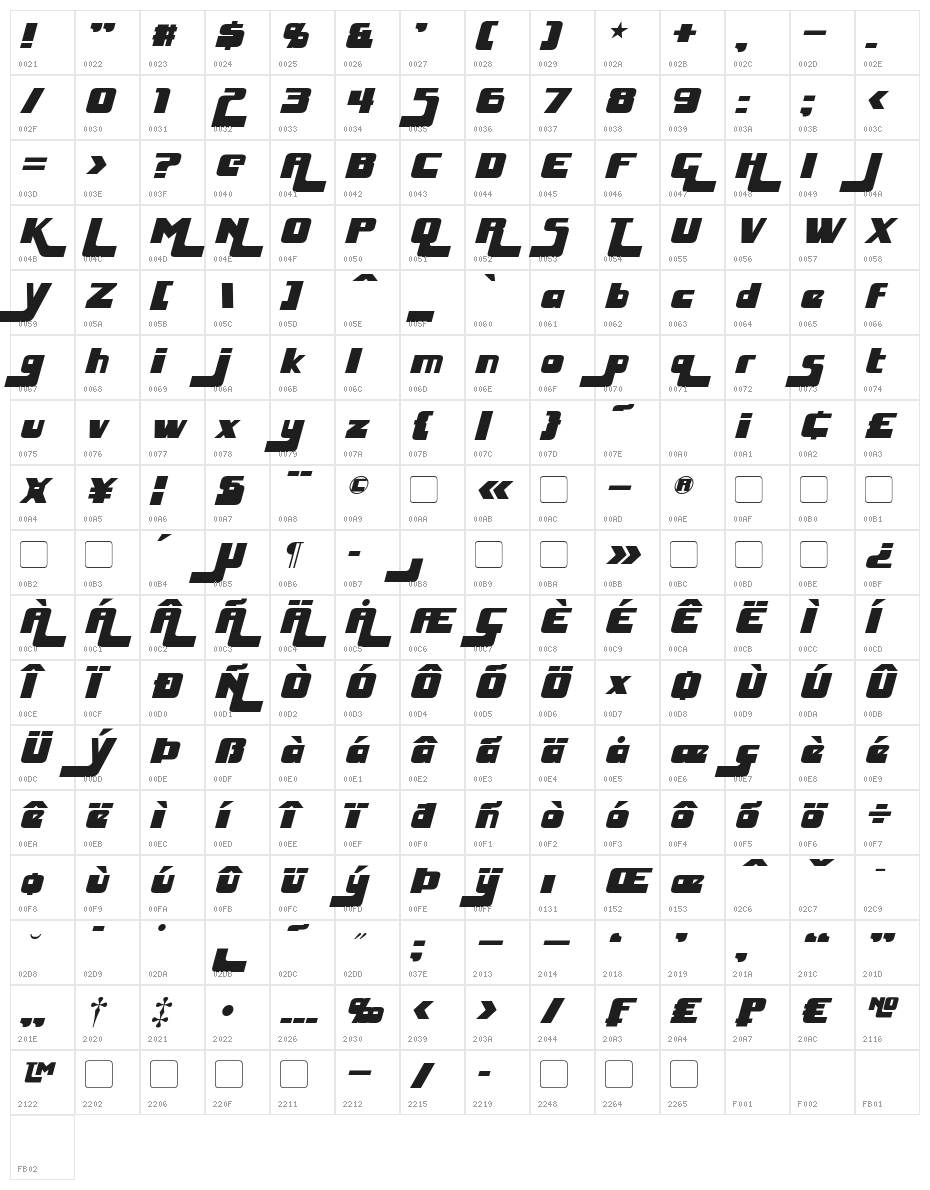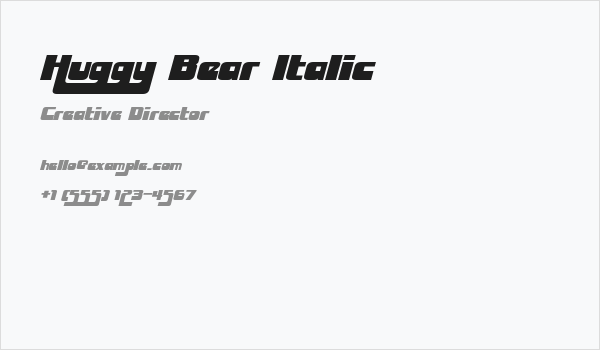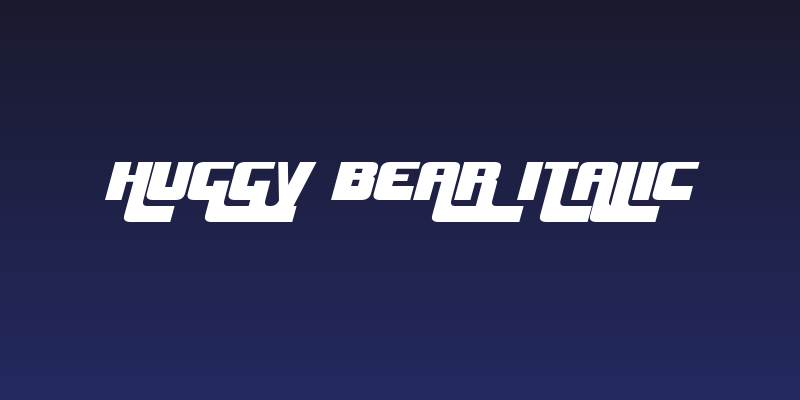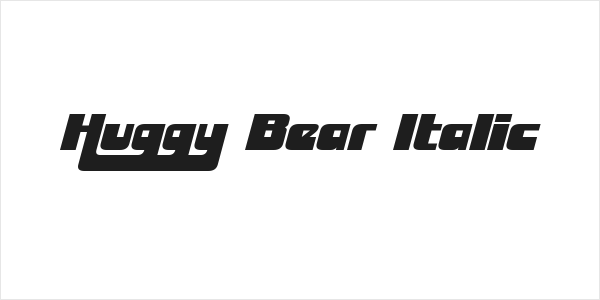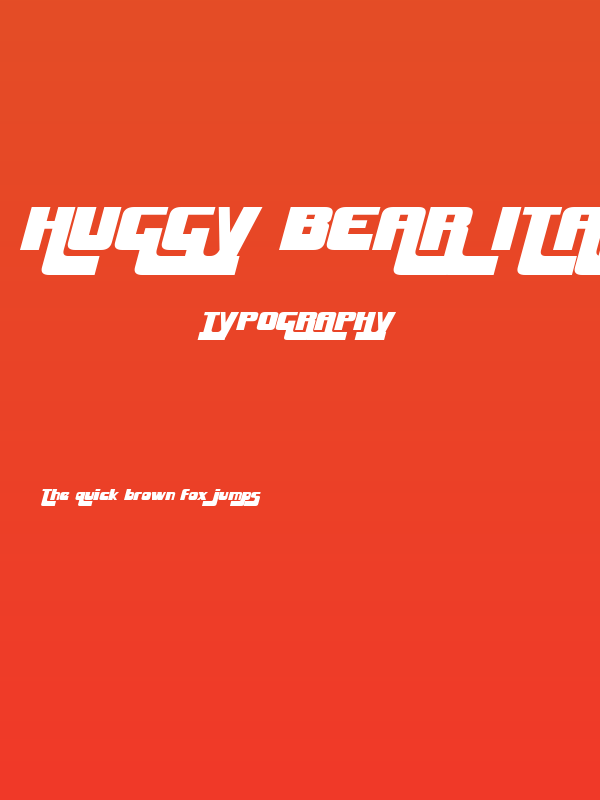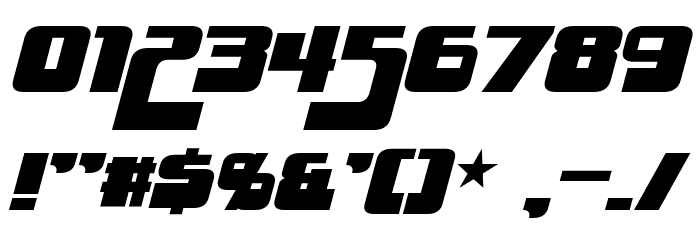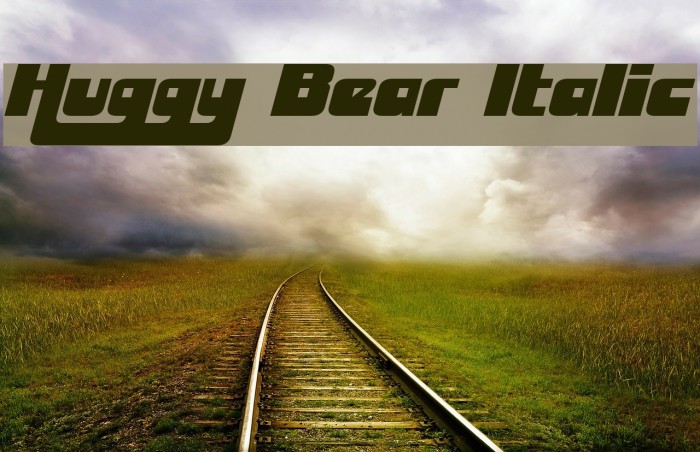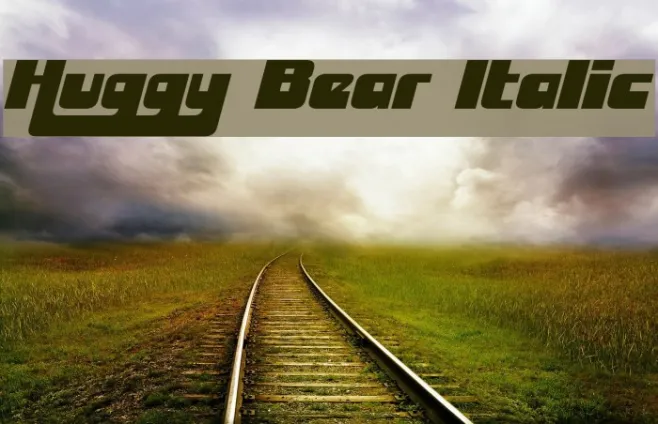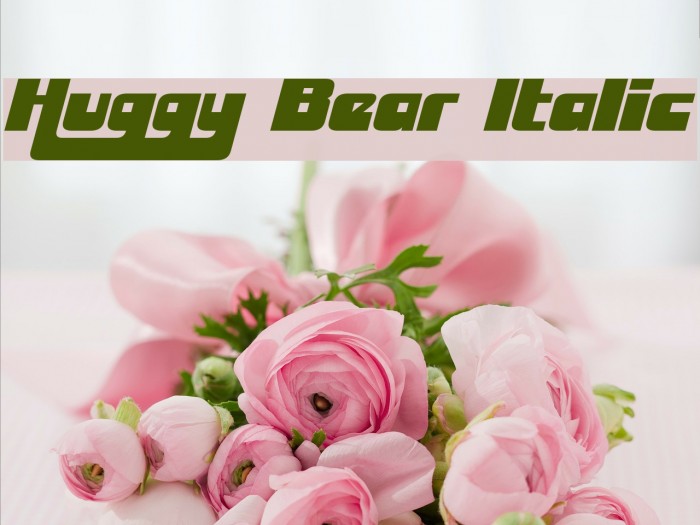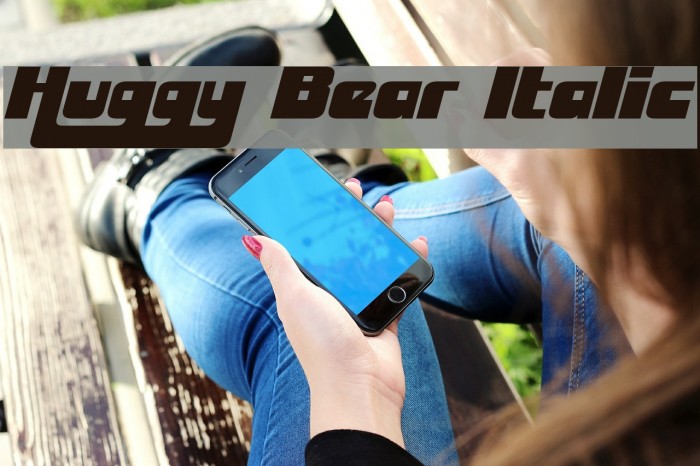
Huggy Bear Italic Font
Huggy Bear Italic Description
This font features a bold, italicized style with a strong, dynamic presence. The characters are designed with a futuristic and sporty aesthetic, showcasing sharp angles and a forward-leaning posture that conveys motion and energy. The uppercase and lowercase letters maintain a consistent width, contributing to a cohesive look. Numbers and special characters are crafted with the same boldness, ensuring uniformity across all glyphs. The font's thick strokes and minimal contrast between thick and thin lines enhance its readability, making it suitable for impactful designs.
| Proposed Projects | Ideal for sports branding, dynamic posters, video game titles, and automotive advertising. |